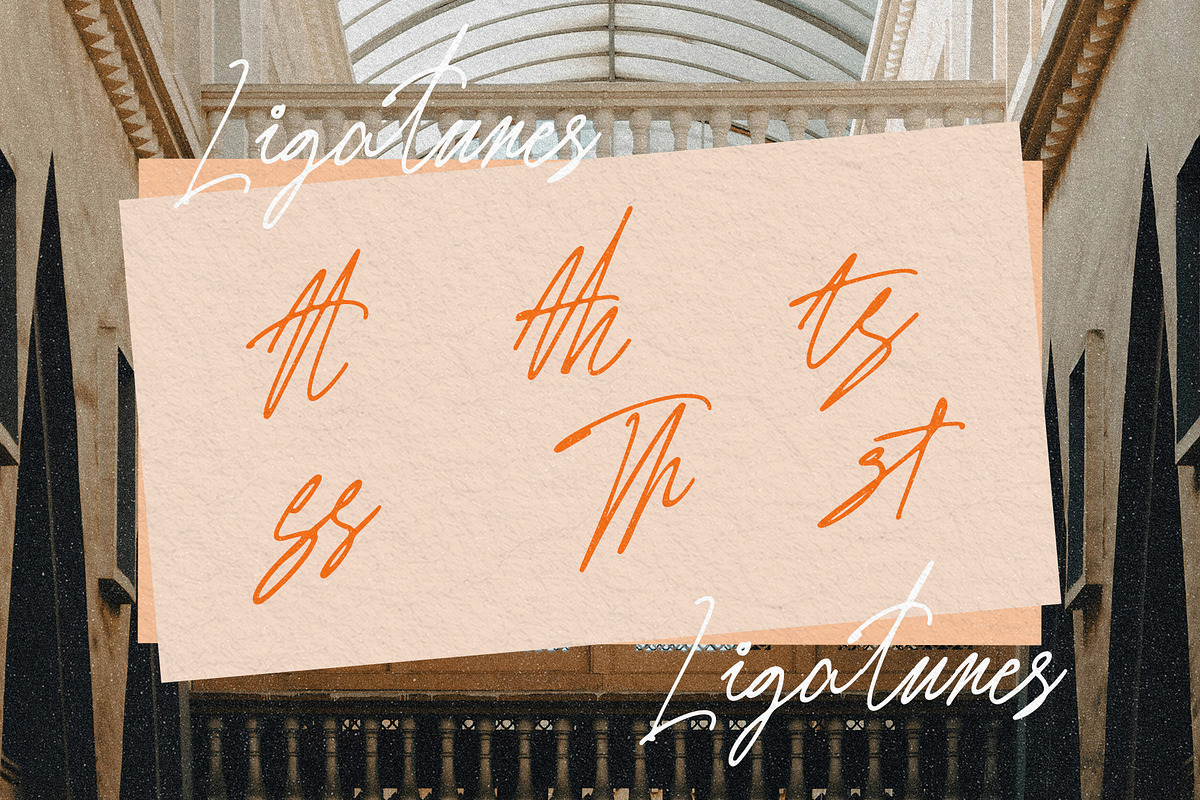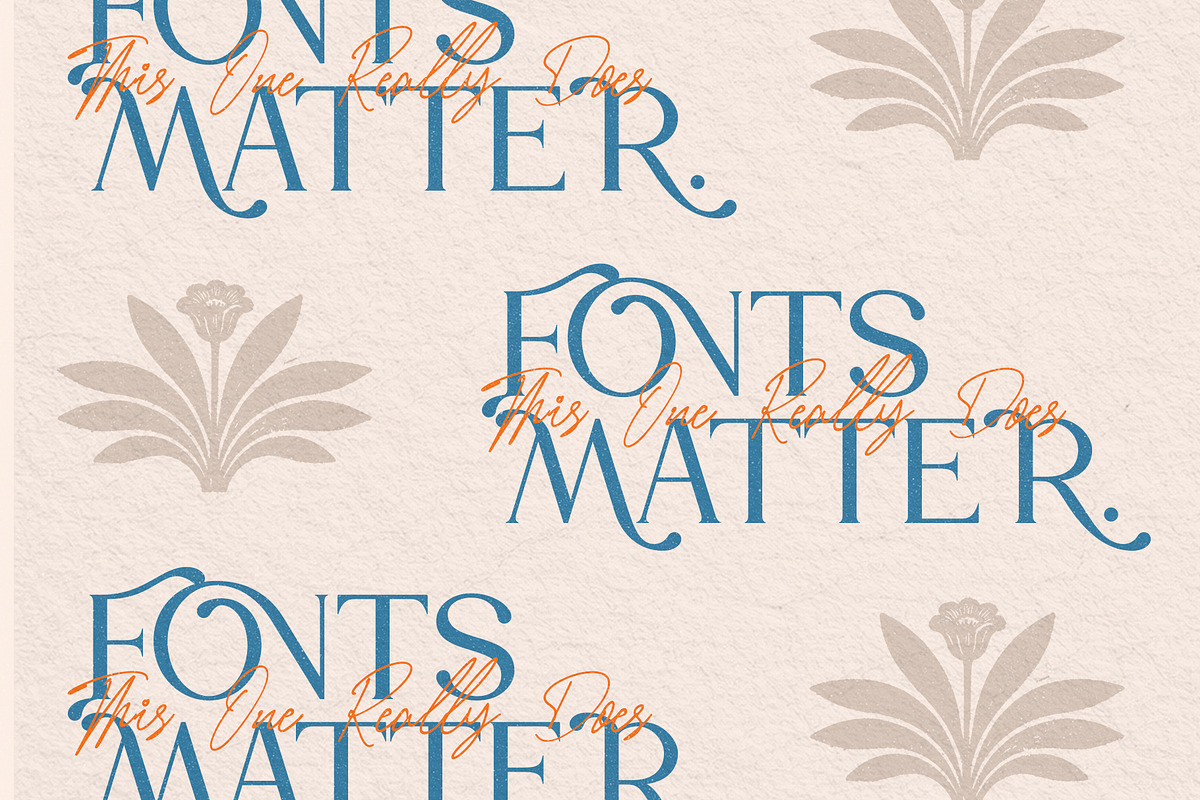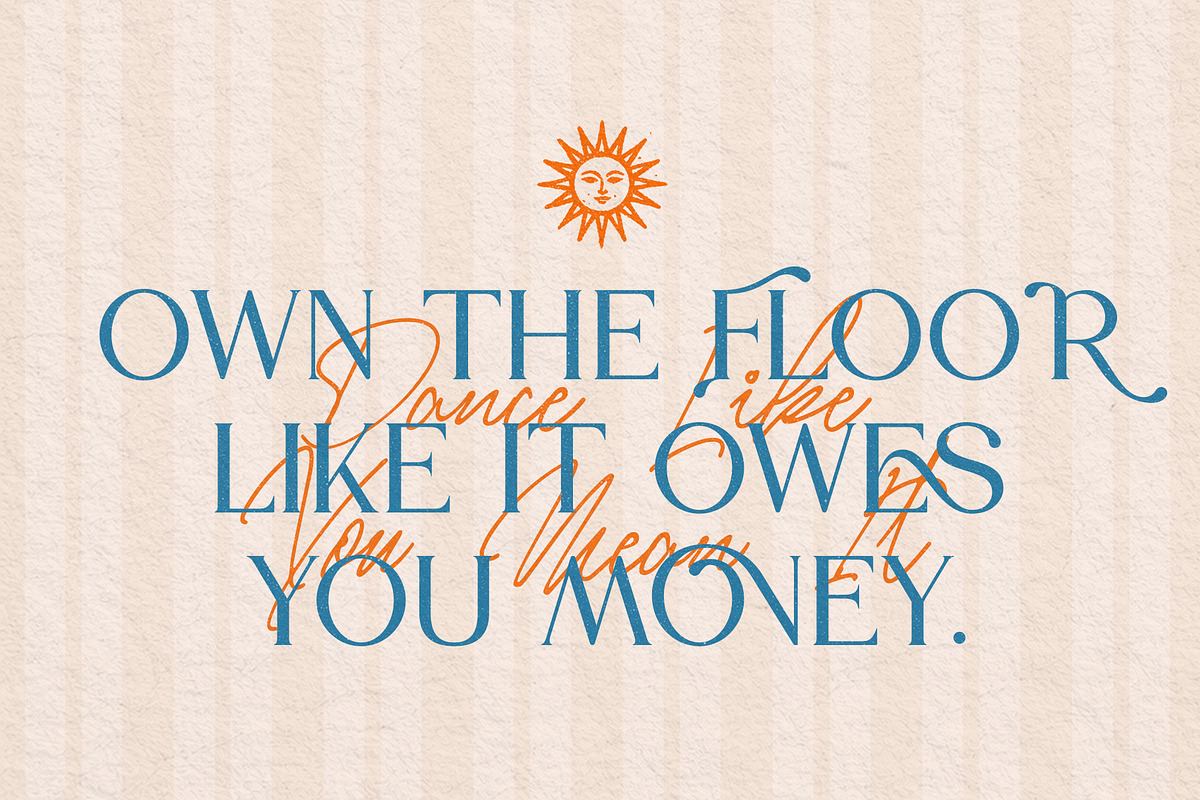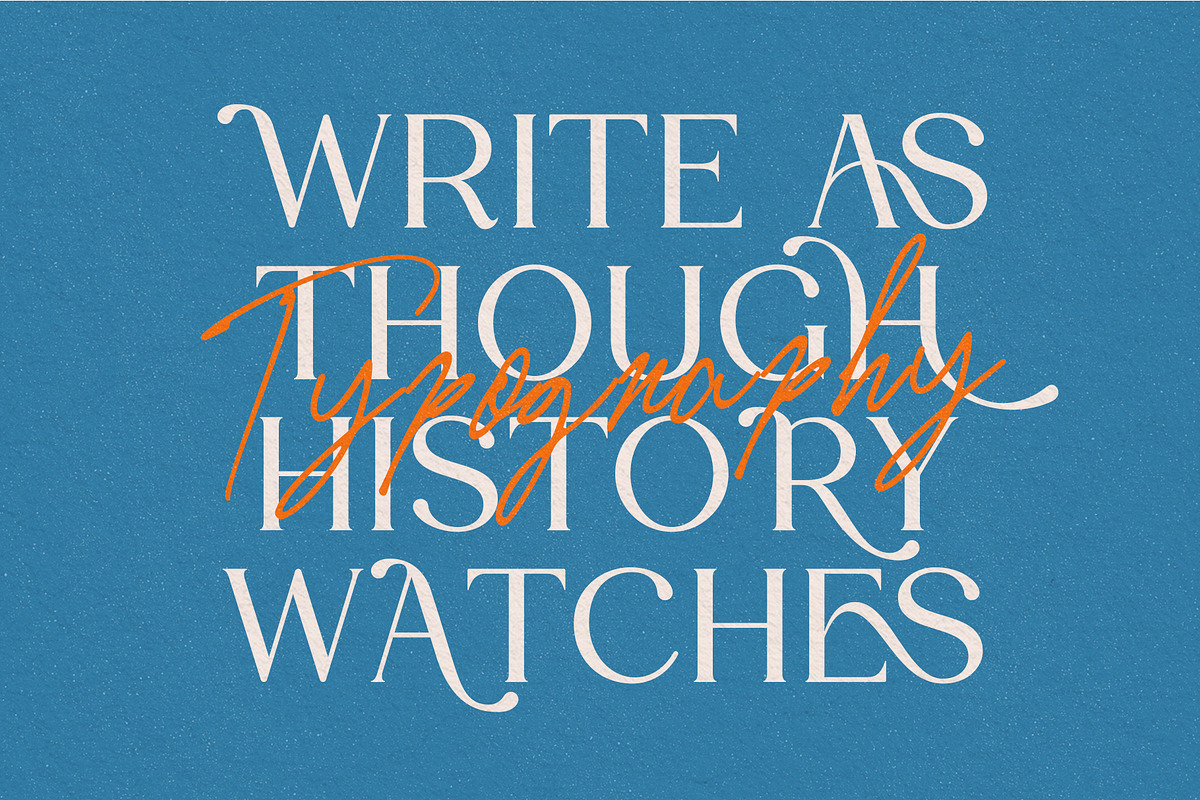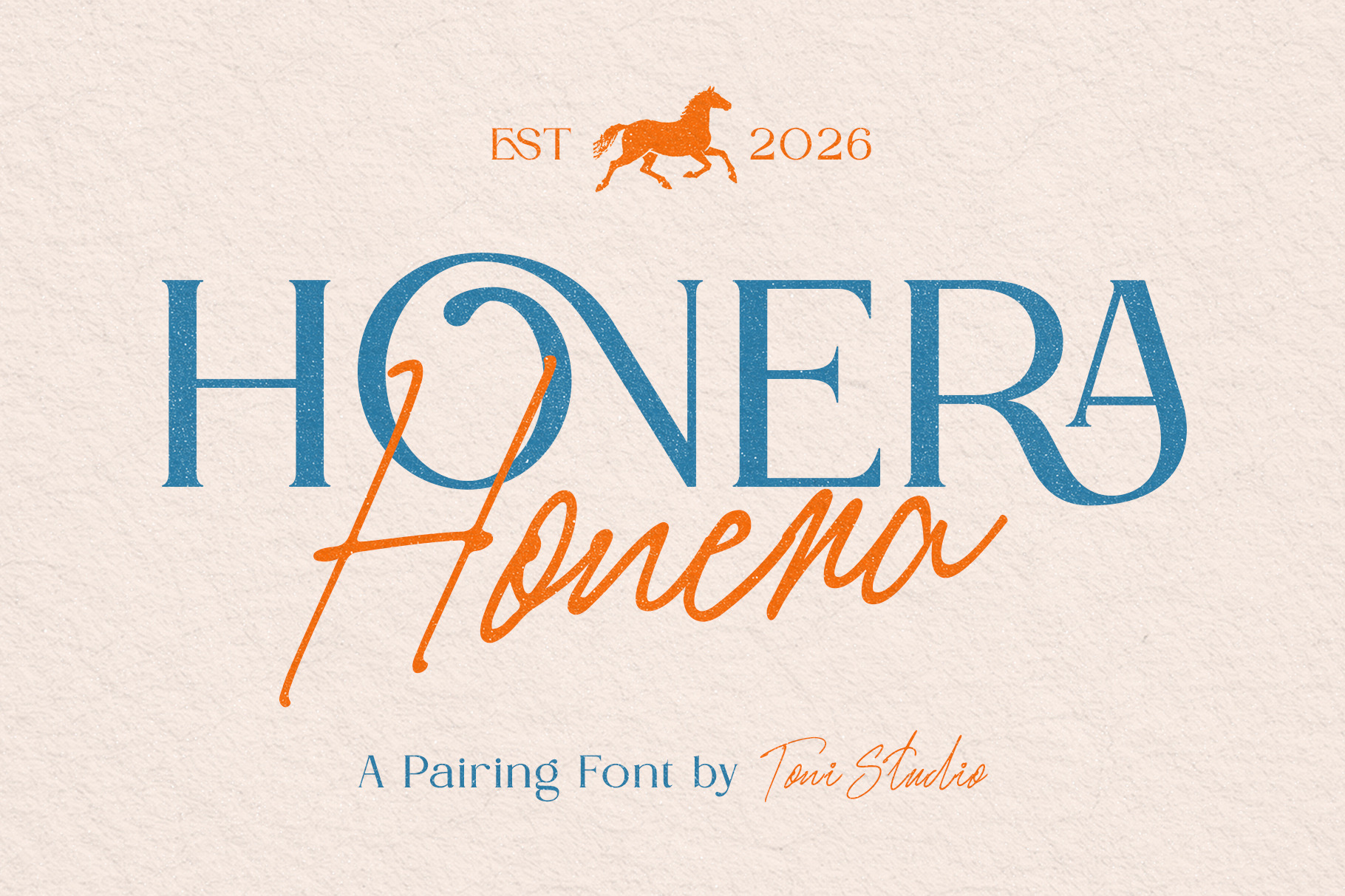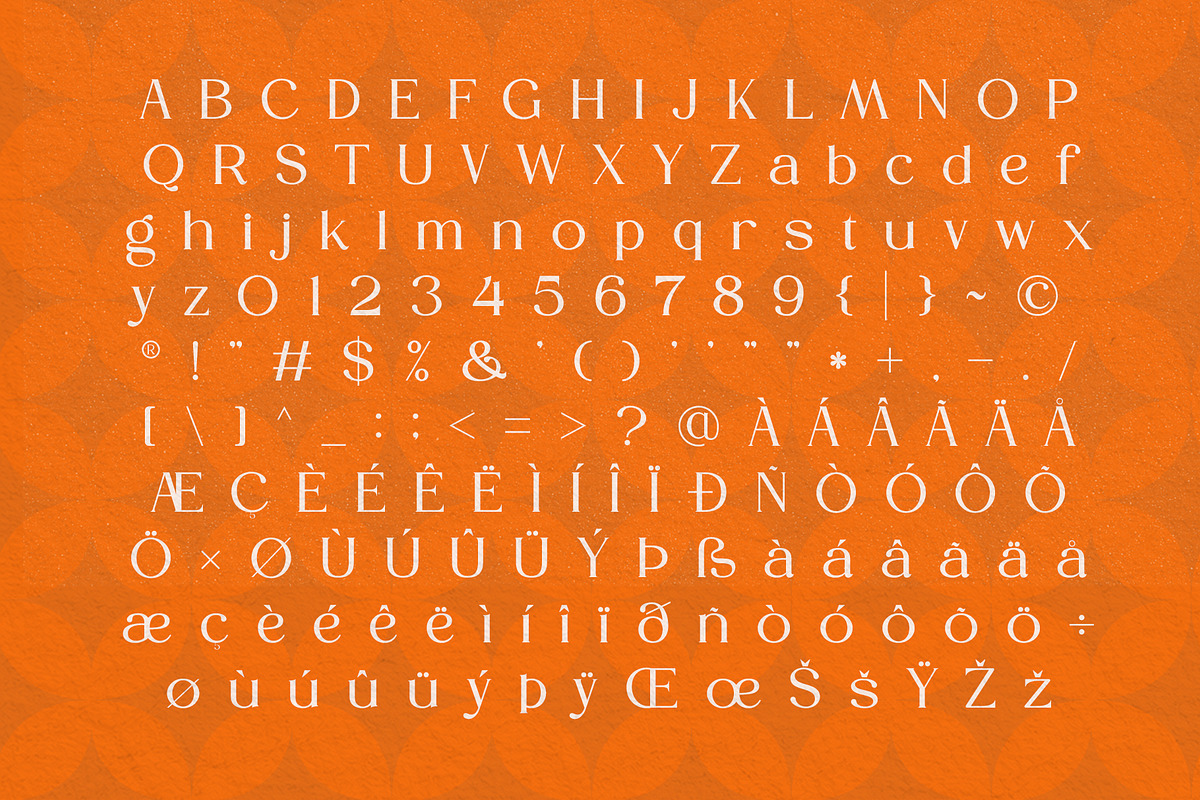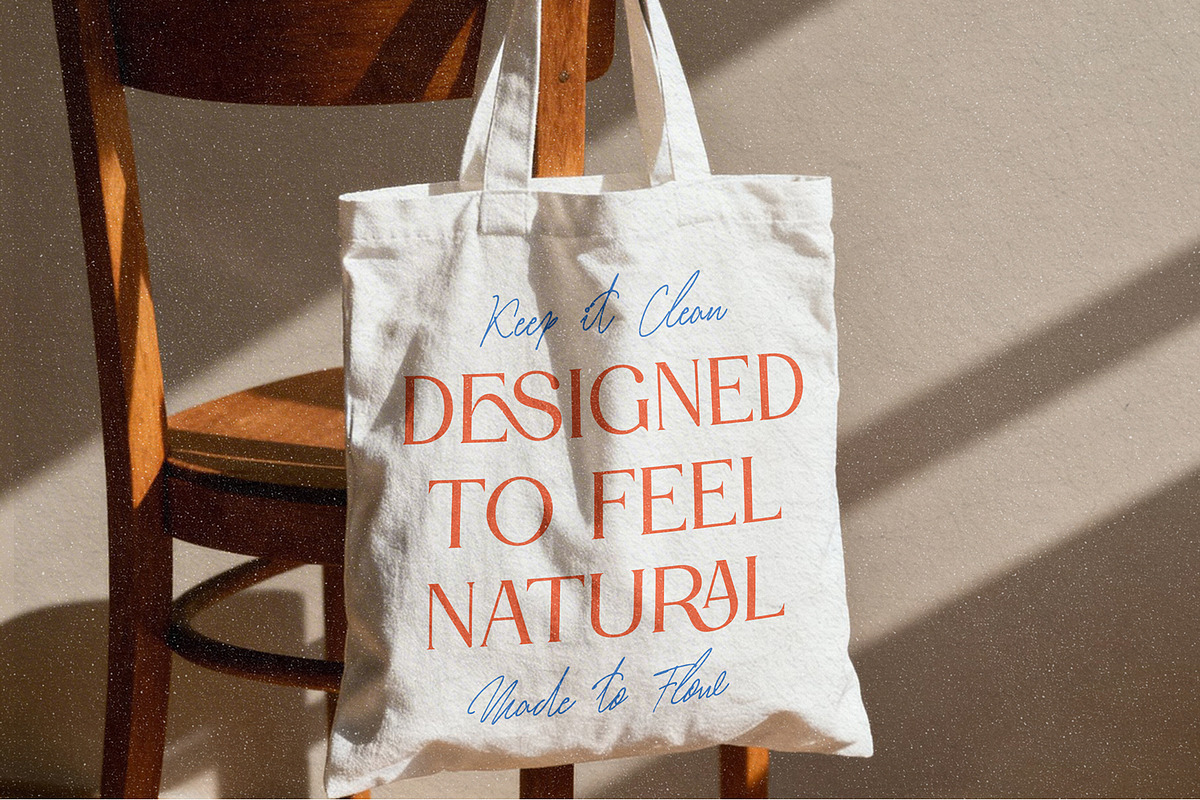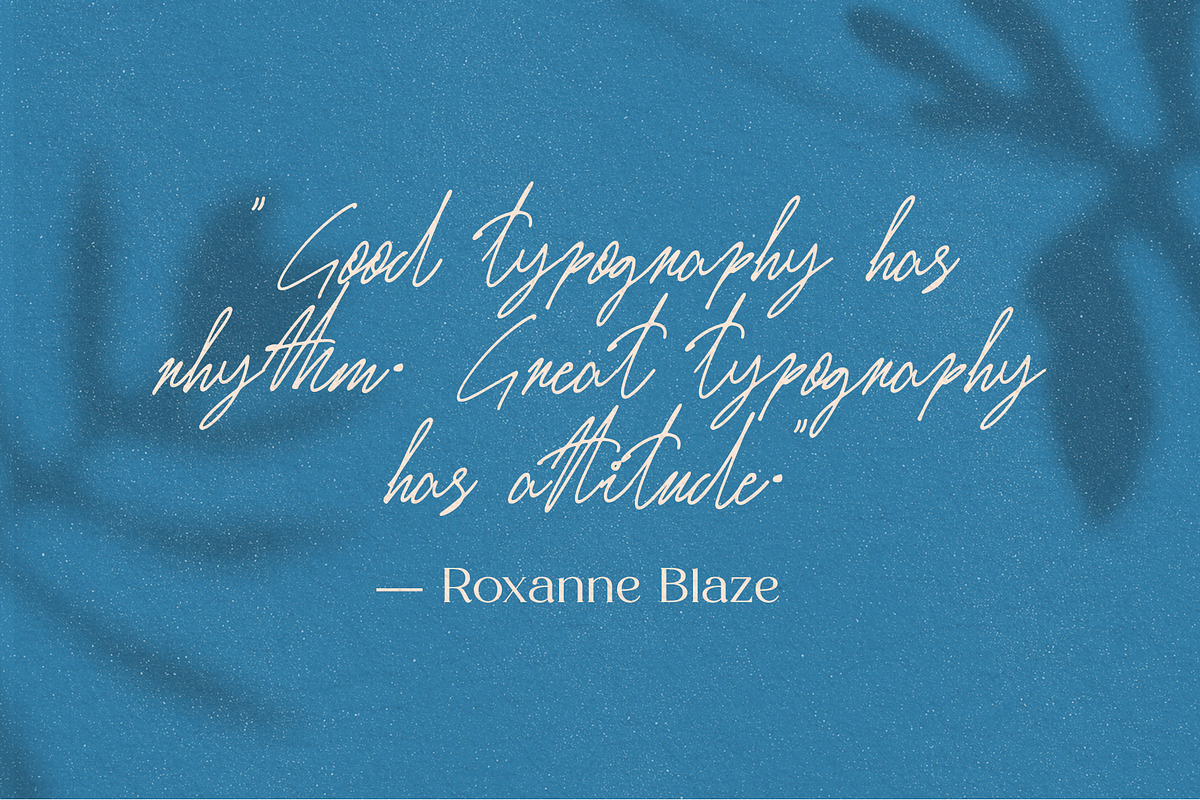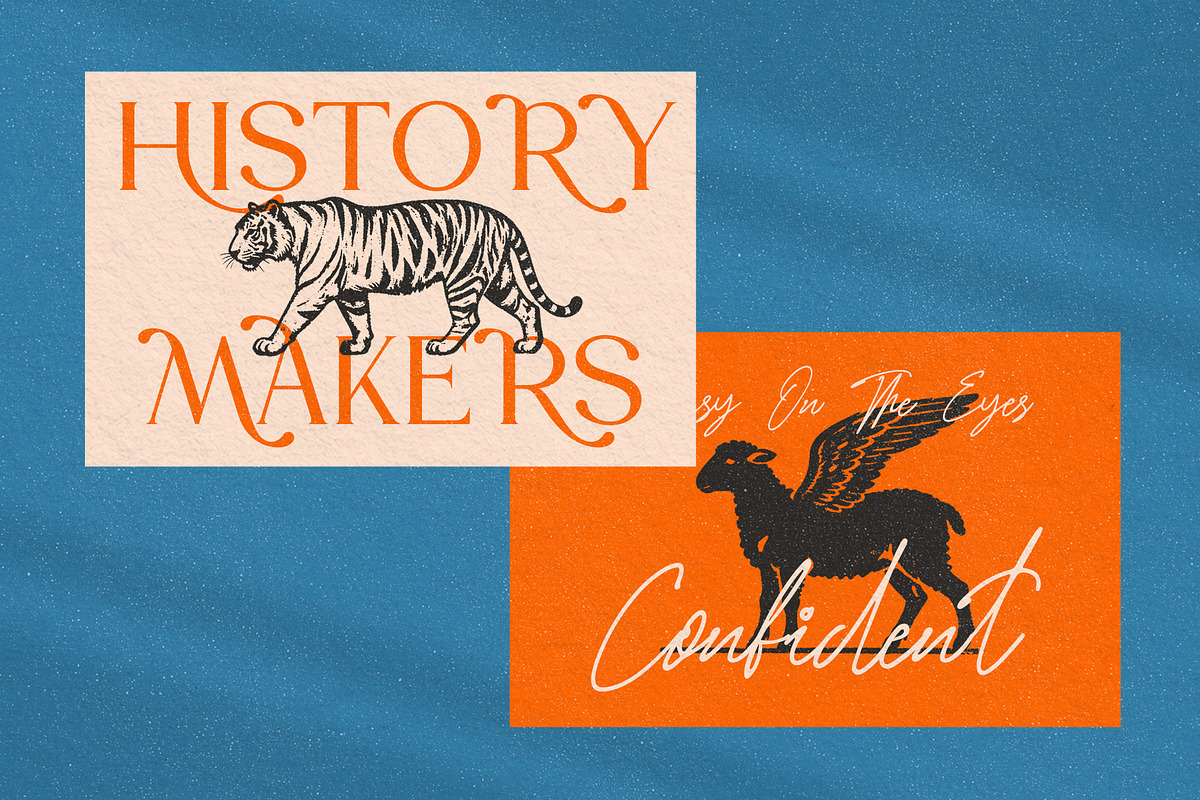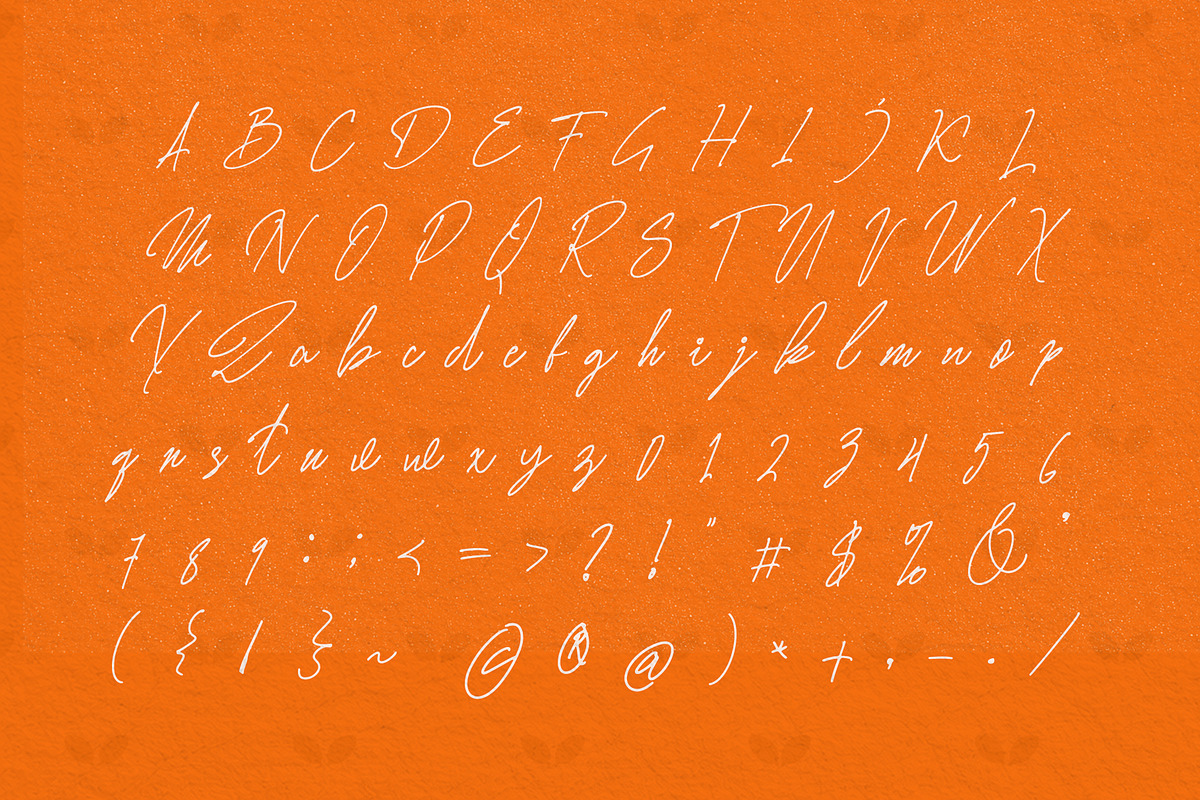
Honera || modern font duo
Honera is a beautifully crafted font duo that combines a refined serif typeface with a flowing handwritten script. This pairing creates a perfect harmony between classic elegance and modern personality, making it ideal for sophisticated and stylish design projects. The serif font delivers structure, clarity, and timeless charm, while the script adds warmth, movement, and a personal touch. Together, they create a balanced and eye-catching typography combination suitable for premium branding and creative layouts. Honera is designed to give your projects a distinctive and memorable identity with effortless pairing built in. Perfect for Branding & logo design, Wedding invitations, Boutique & fashion brands, Editorial layouts, Packaging design, Social media graphics, Signature logos, Luxury product labels
- Serif + Script font duo
- Elegant handwritten style
Honera is the perfect choice for designers who want an elegant yet expressive typography combination in one complete package.